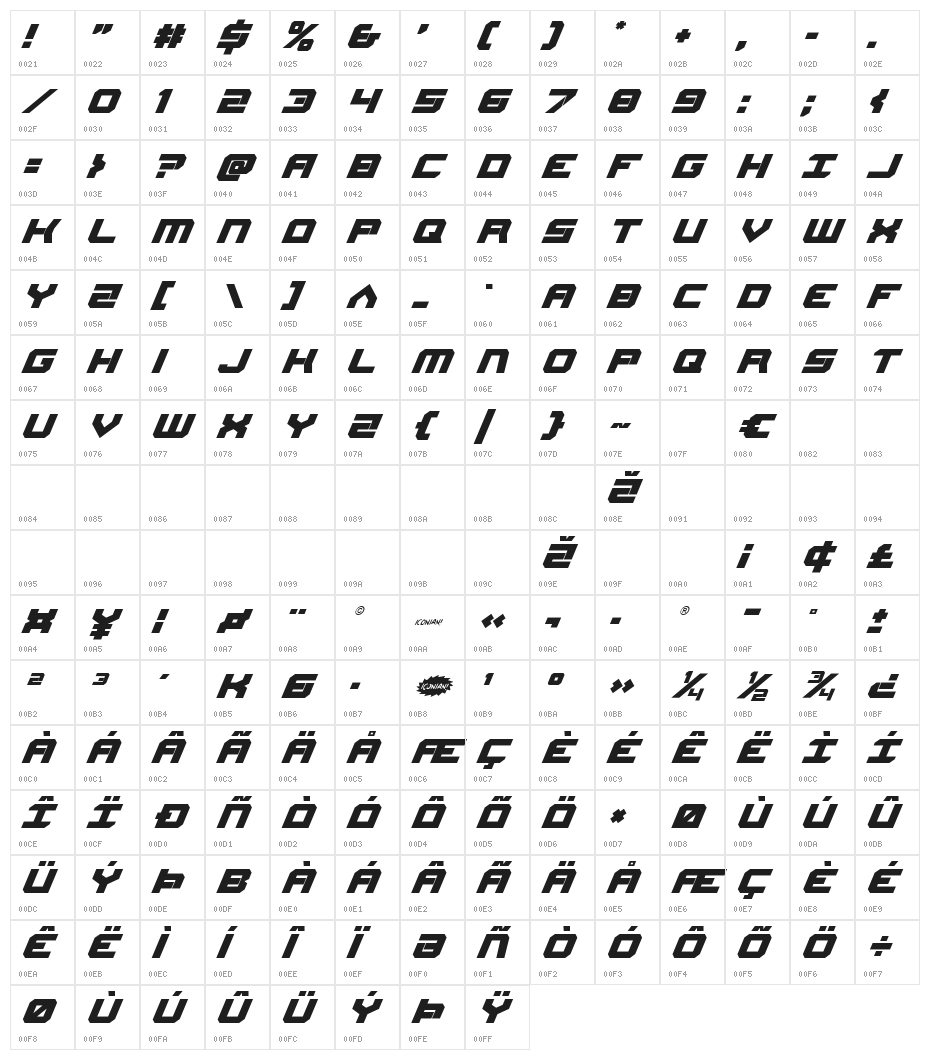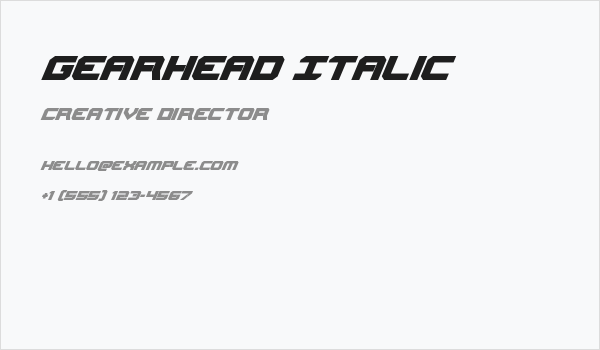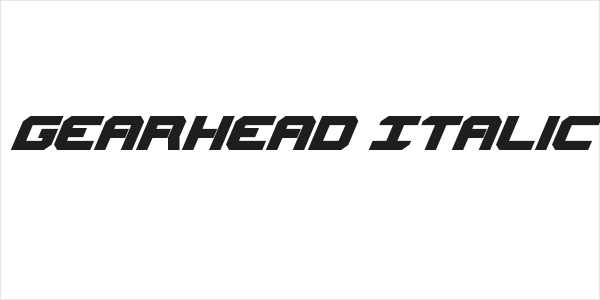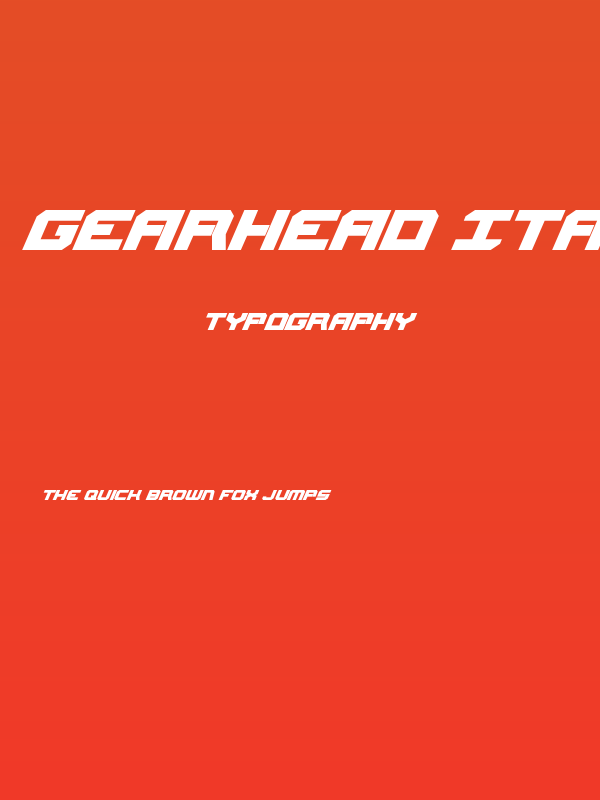
Gearhead Italic Font
Gearhead Italic Description
This font features a bold, italicized style with a futuristic and mechanical aesthetic. The characters are angular and geometric, with sharp edges and a consistent slant that gives a sense of motion and speed. The uppercase and lowercase letters maintain a uniform height, contributing to a cohesive look. The numerals and special characters are designed to match the overall theme, with similar angular cuts and slanted forms. This font is highly legible and impactful, making it suitable for dynamic and modern design projects.